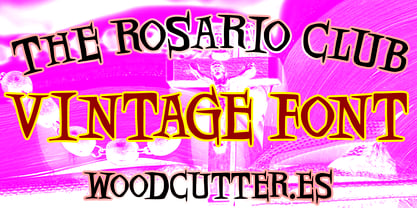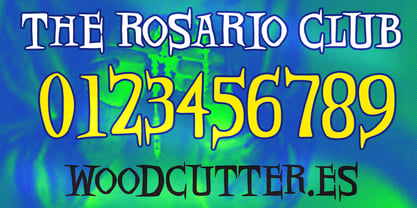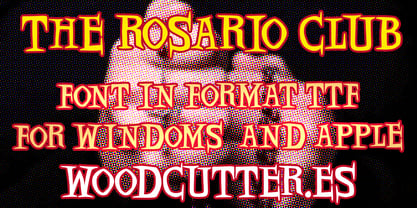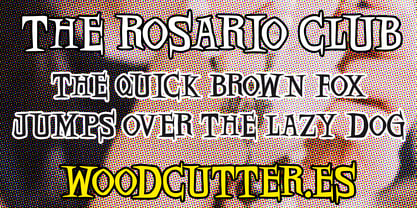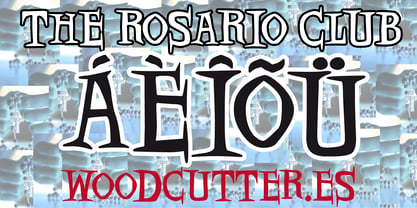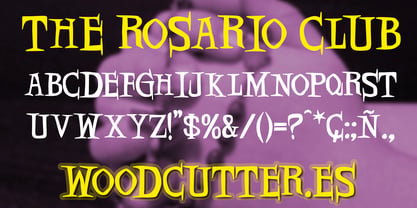
The Rosario Club
by Woodcutter
The The Rosario Club Font Family was designed by Jordi Manero and published by Woodcutter. The Rosario Club contains 1 styles. More about this family
“The Rosario Club” is an uppercase typeface that evokes a vintage style inspired by old-school cartoons. Its stylized letters feature a unique design, with slightly pointed lines that add dynamism and character. This font combines a nostalgic aesthetic with a modern touch, making it ideal for capturing a retro essence in design projects. Its elegant and distinctive appearance makes it perfect for posters, logos, titles, or any design seeking a classic vibe. Additionally, it includes accents, expanding its usability across various languages. A fun and sophisticated option for creative designs.